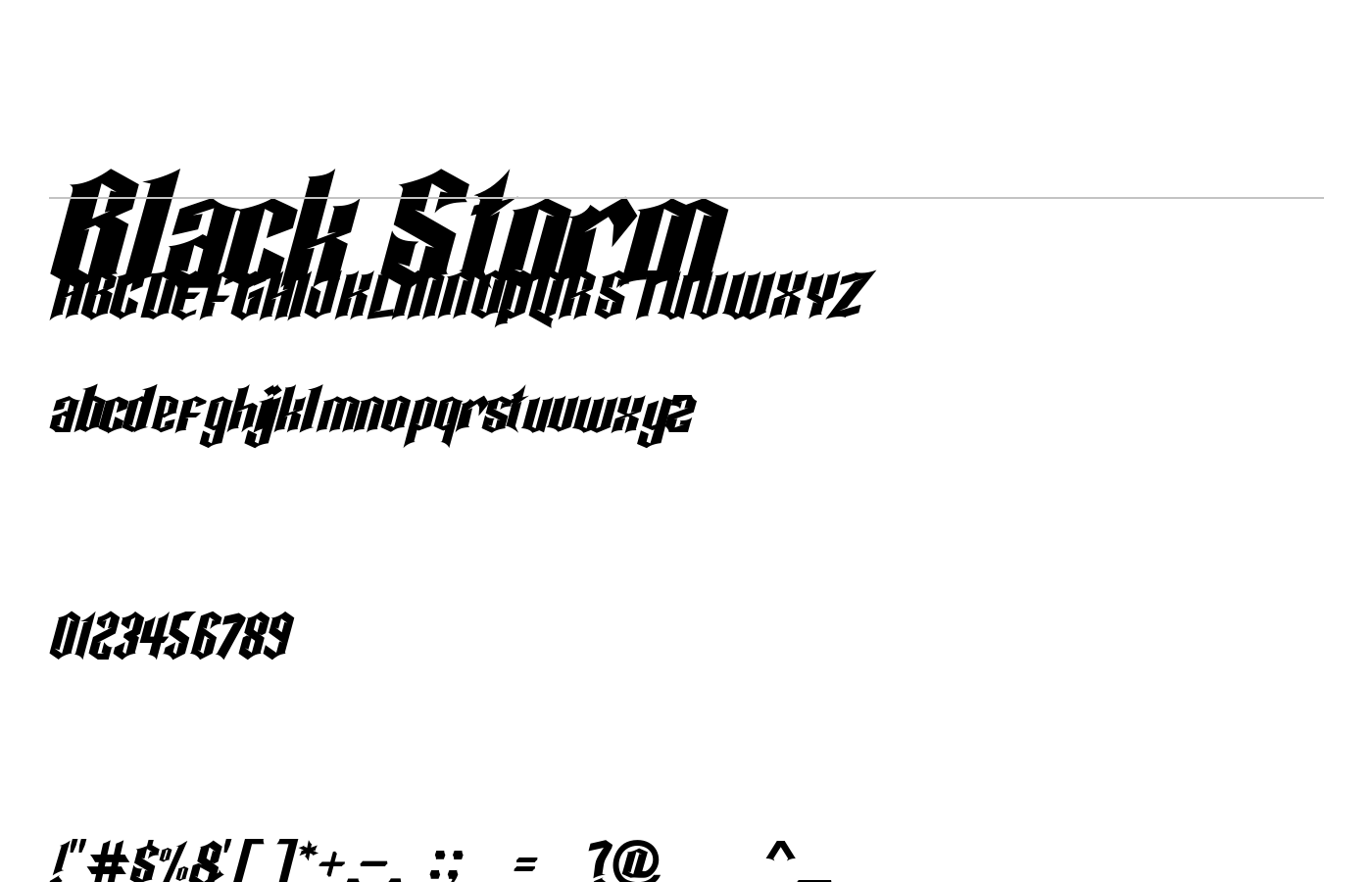
Black Storm is a bold and dramatic blackletter-style font with sharp, angular strokes and a condensed, tall structure that gives it a powerful, intense character. Its heavy weight and strong contrast evoke a vintage gothic feel, making it ideal for edgy branding, poster headlines, or designs that need a striking, rebellious attitude. This font works best in display uses where its unique, aggressive personality can shine and capture attention.
Black Storm Font
About Black Storm Font
| Font family | Black Storm Font |
| Designer | Antline |